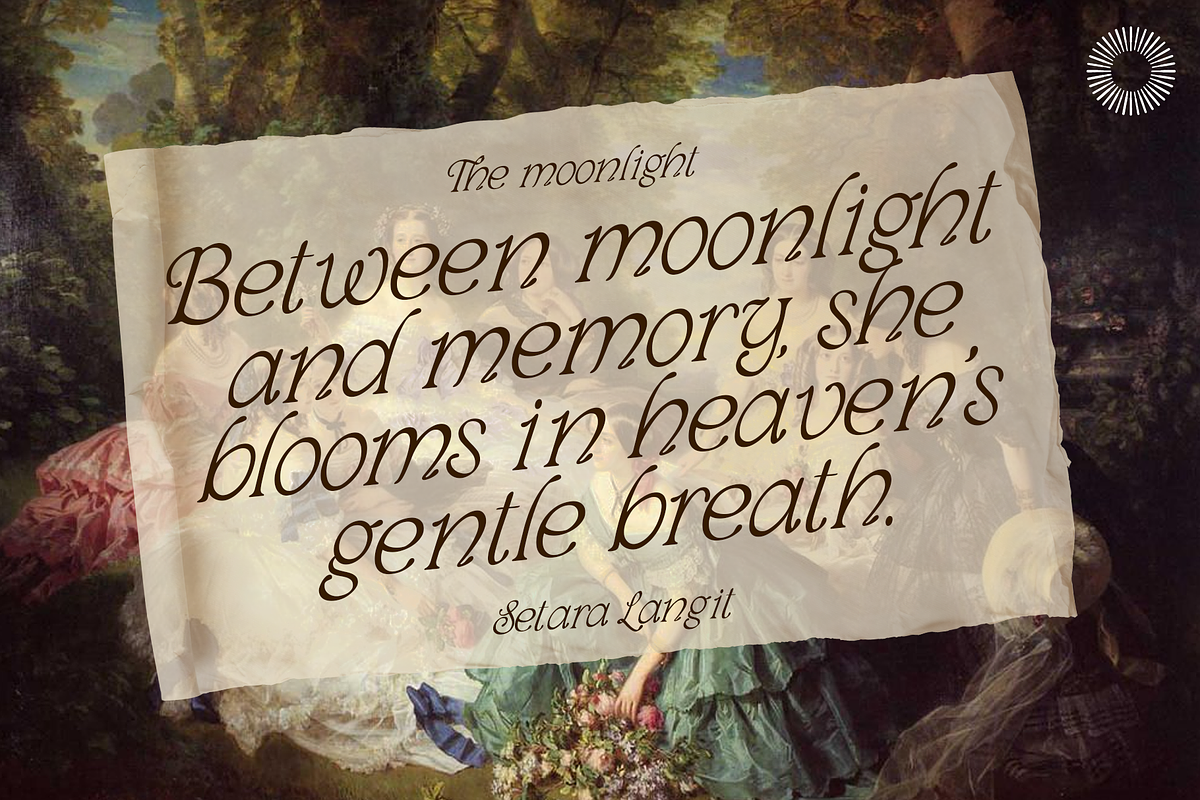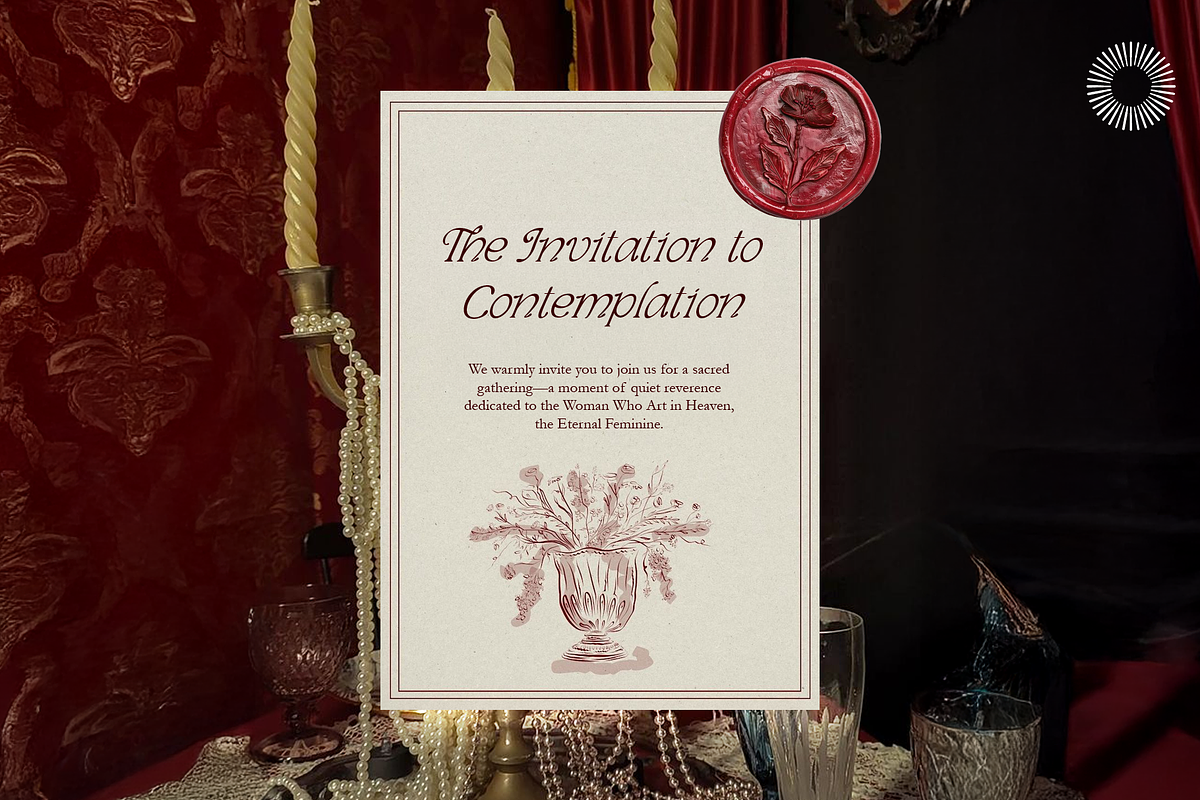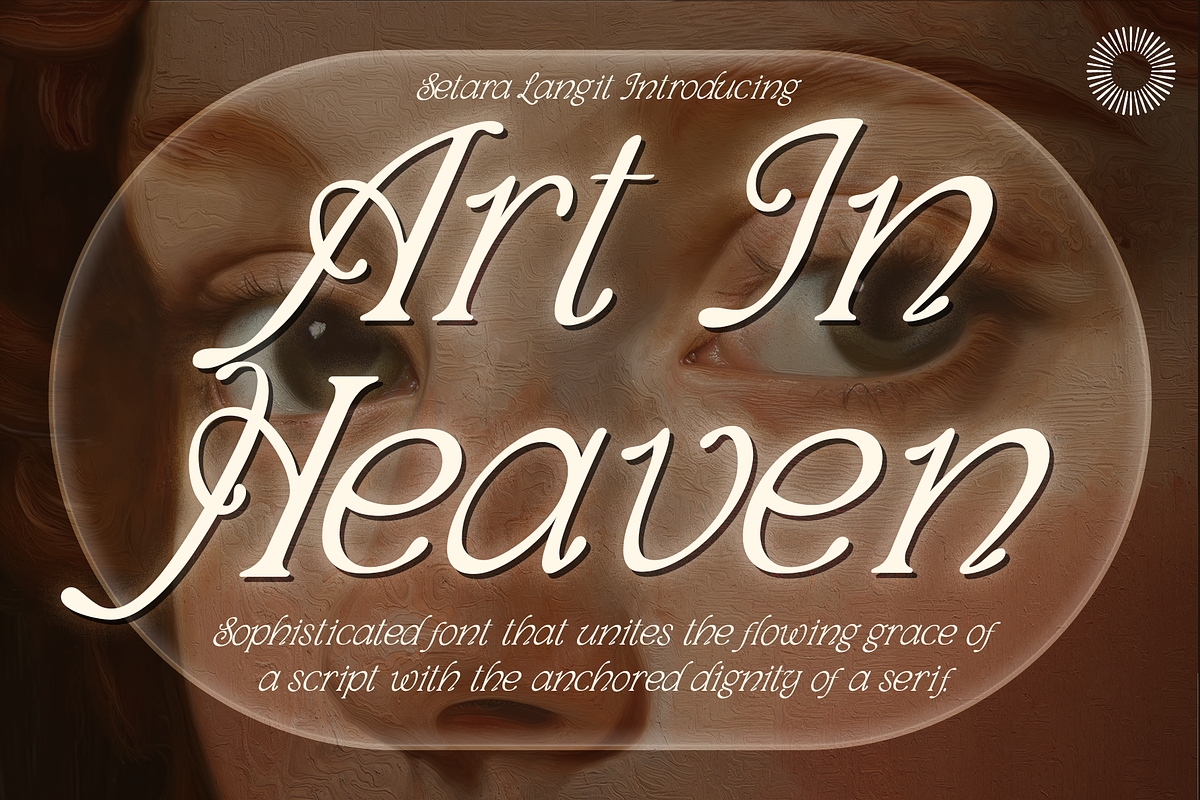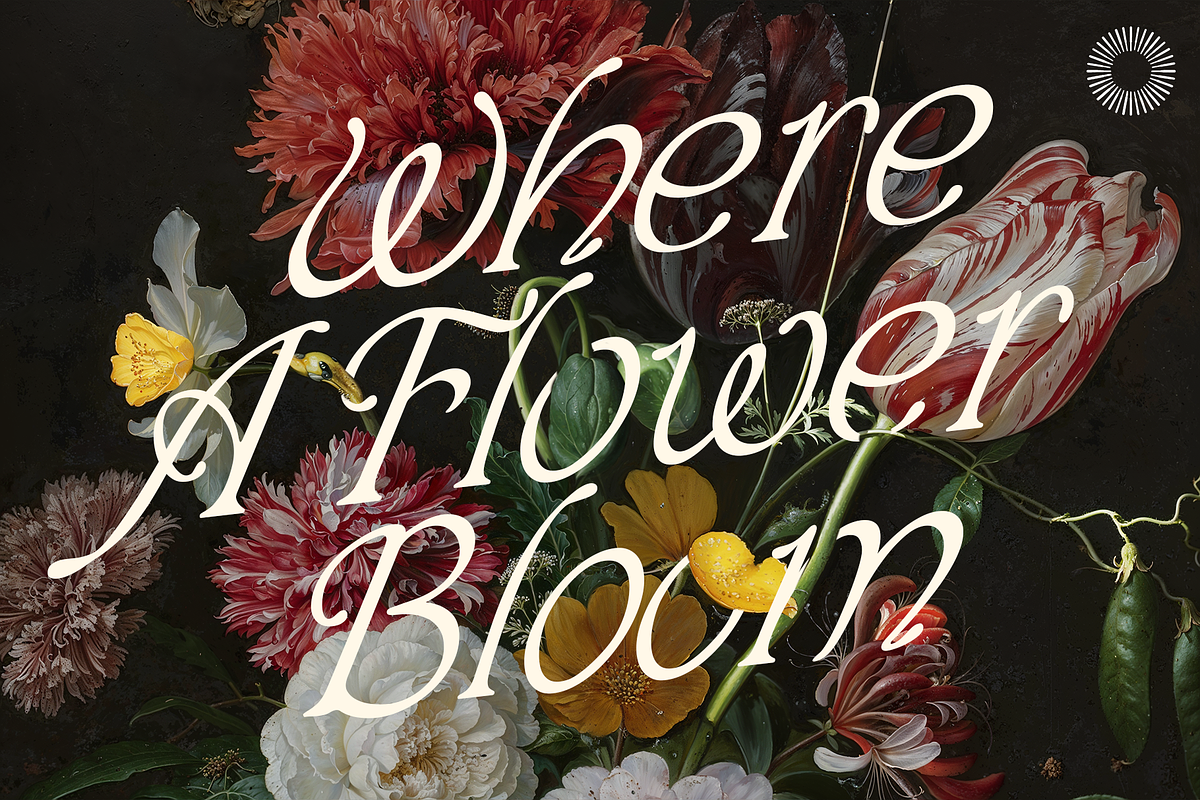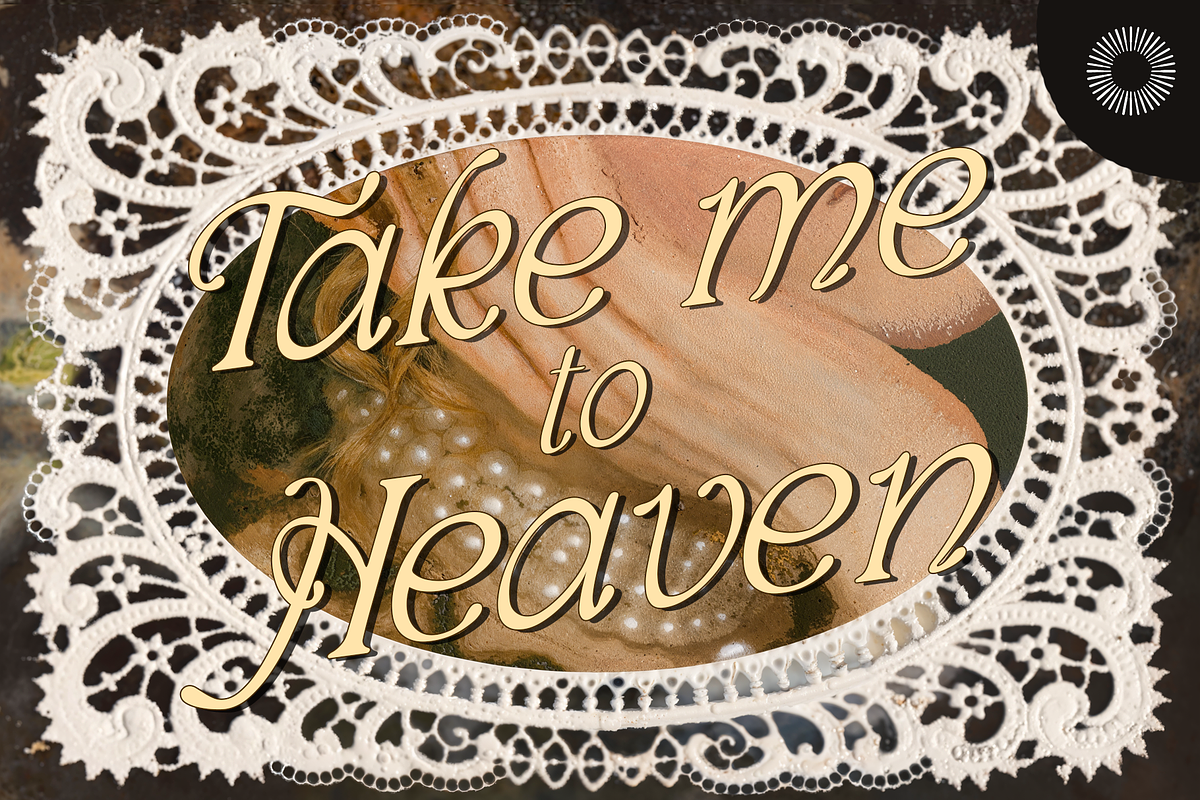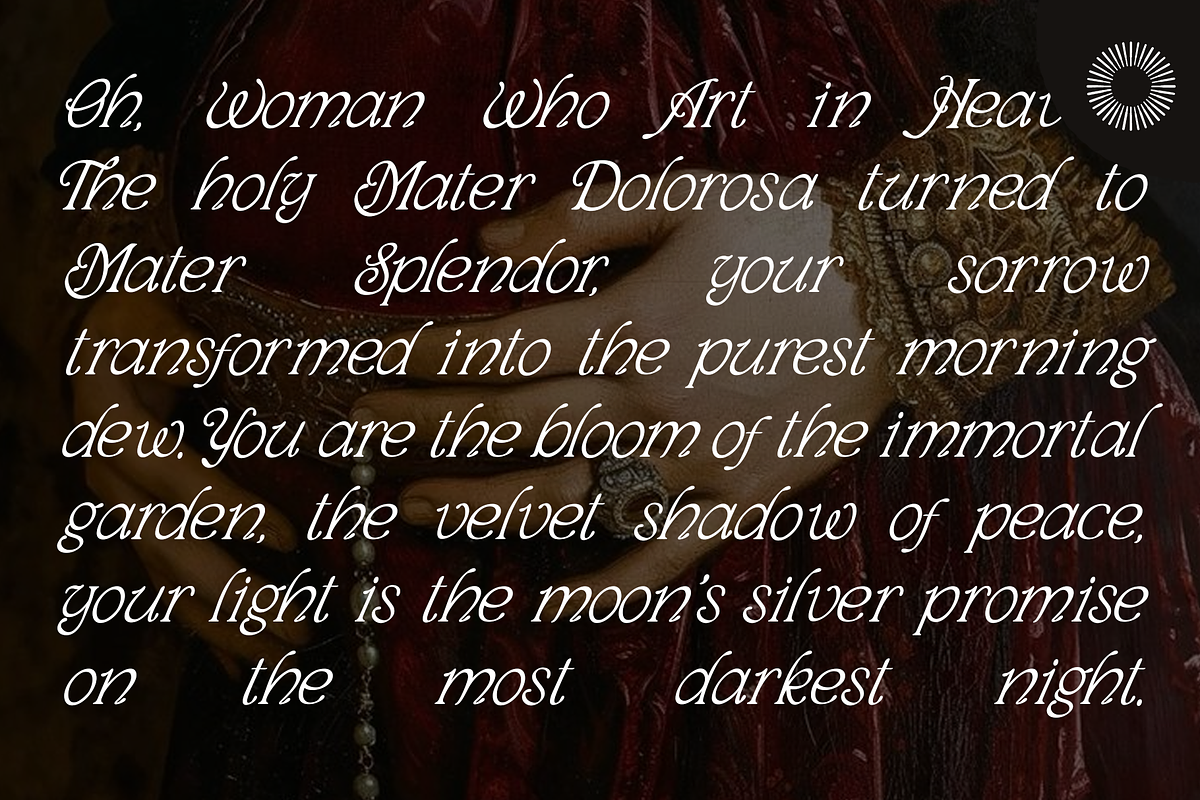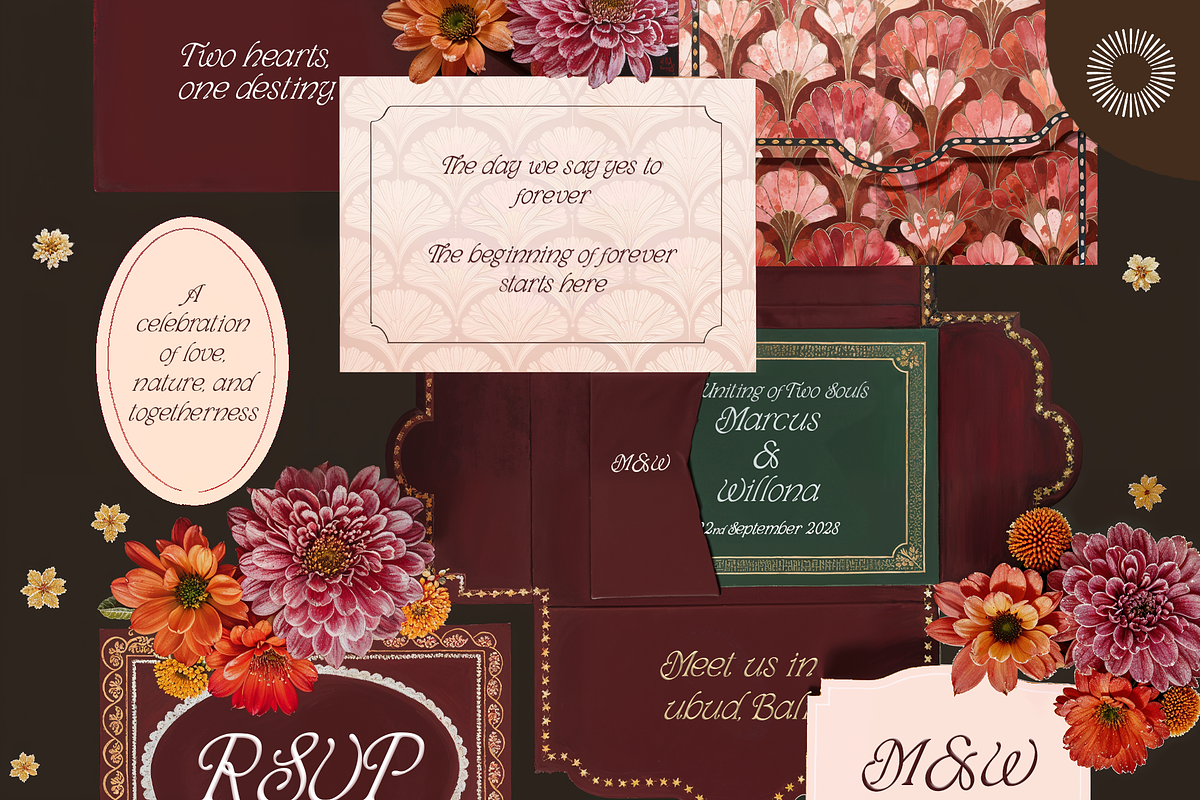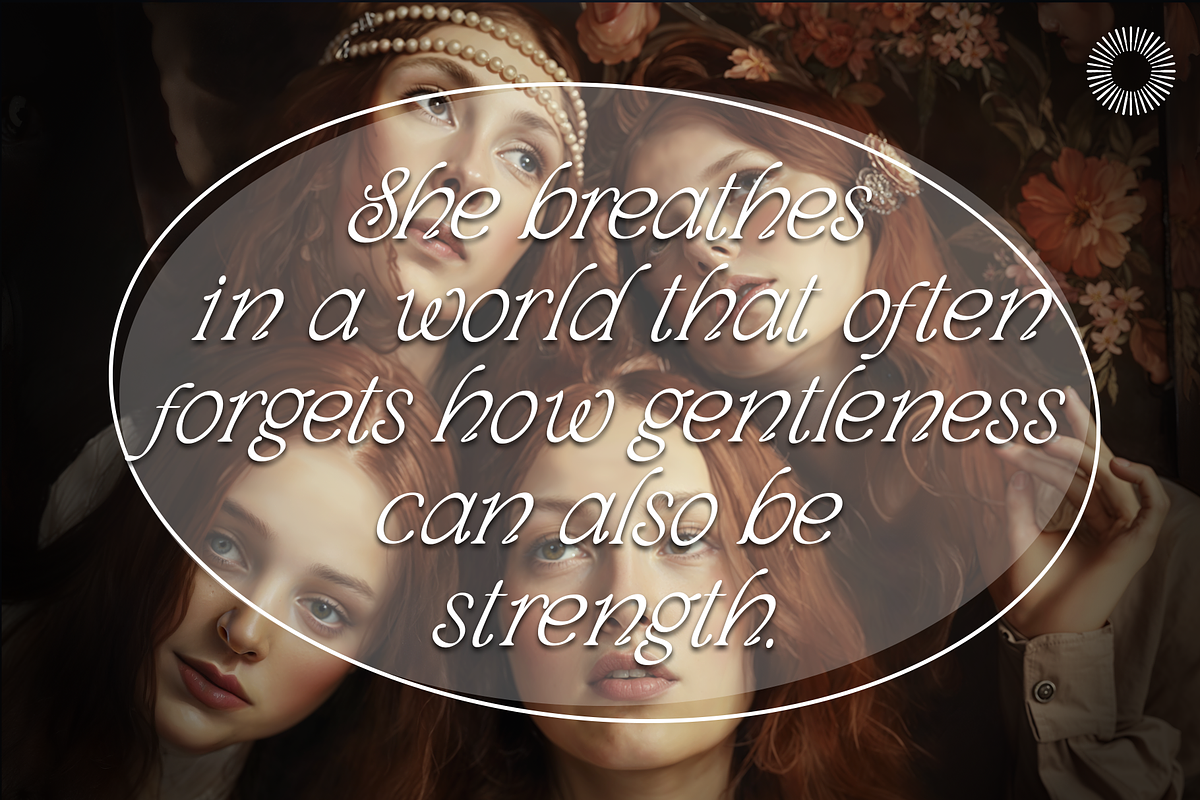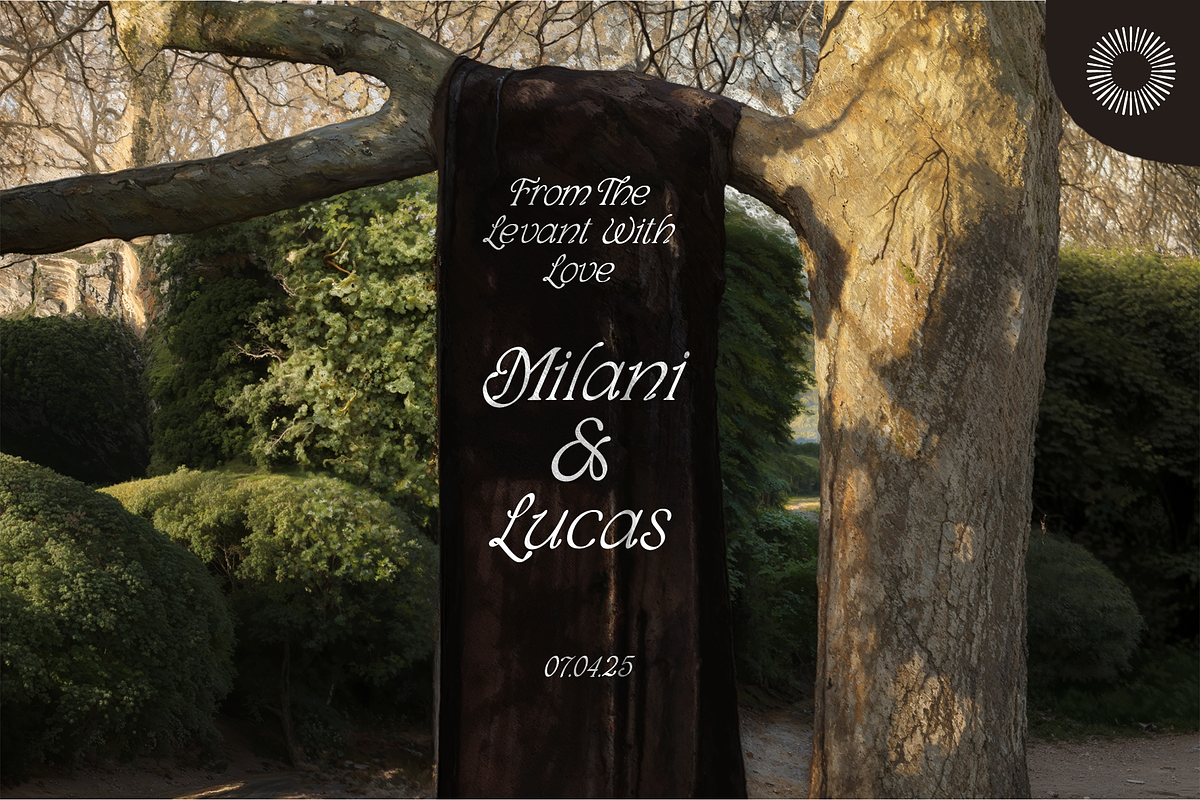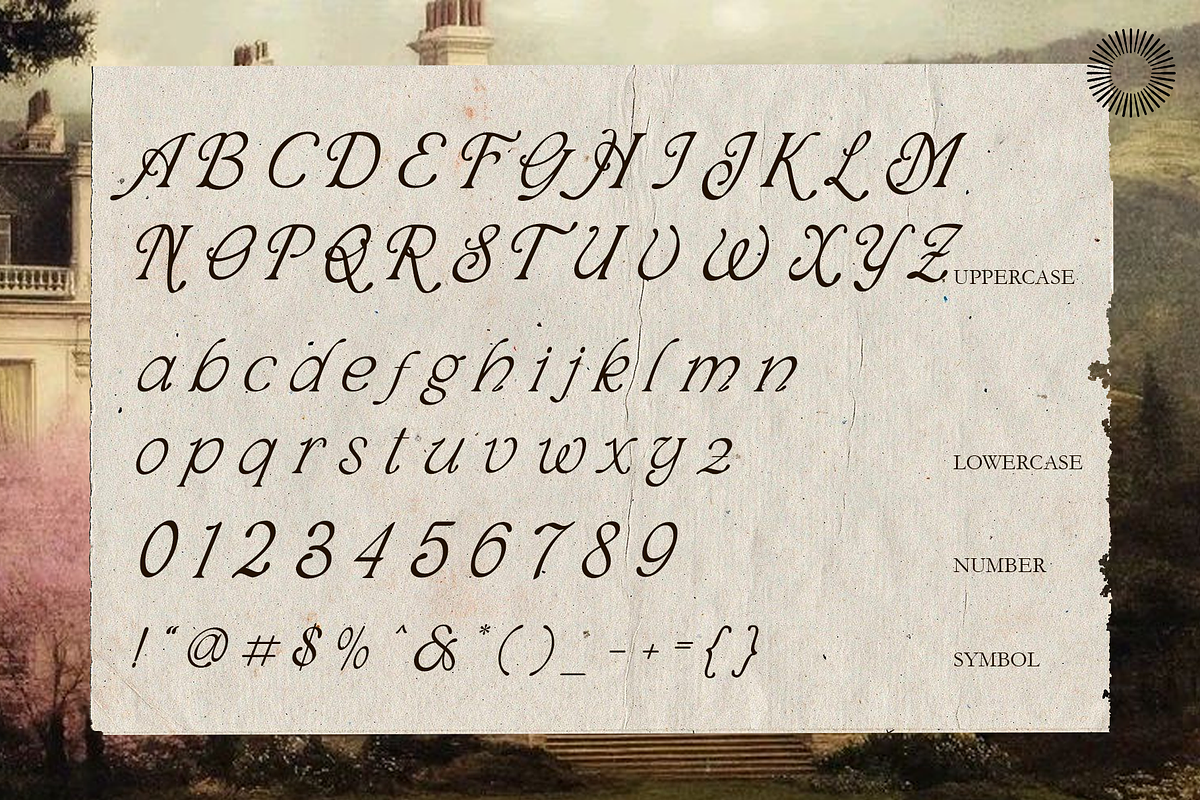
Art In Heaven - Ethereal Serif
Art in Heaven is a poetic serif typeface that evokes the feeling of timeless beauty and celestial grace. Its letters flow with gentle rhythm, curving elegantly as if hand-carved by an artist who understands both balance and imperfection. The contrast between the thick and thin strokes feels organic, almost like the petals of a flower unfolding in slow motion, graceful yet intentional. It carries a whisper of calligraphy within its serif structure, giving every word a sense of reverence and emotion. Inspired by Renaissance artistry and the serenity of classical sculpture, Art in Heaven finds harmony between the divine and the earthly. It feels romantic yet modern, ornamental yet readable, perfect for projects that seek a touch of sophistication and soul. Whether placed over a canvas of florals or minimalist compositions, this typeface blooms with quiet power, turning language into a visual prayer.